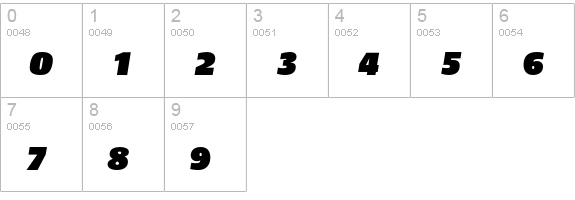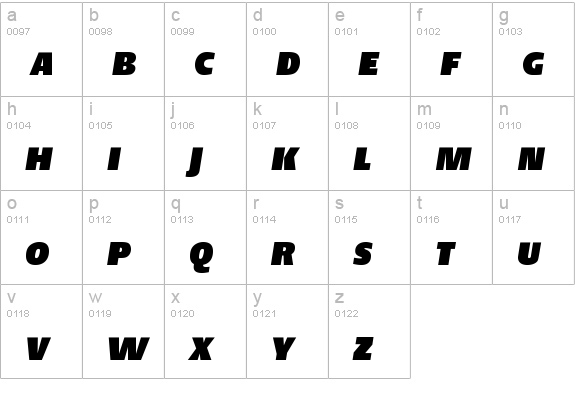
DTLArgoTCaps-UltraHeavyItalic is a bold and impactful font designed for making a statement. Its strong, italicized characters exude a sense of power and authority, making it ideal for attention-grabbing headlines and branding projects. The ultra heavy weight of this font ensures that your message will be noticed and remembered. And the best part? DTLArgoTCaps-UltraHeavyItalic is available for free download at FontsMarket.com. Whether you're working on a professional design project or simply looking to add a touch of drama to your personal creations, this font is a versatile and eye-catching choice. Don't miss out on the opportunity to enhance your designs with this striking typeface – download DTLArgoTCaps-UltraHeavyItalic today!